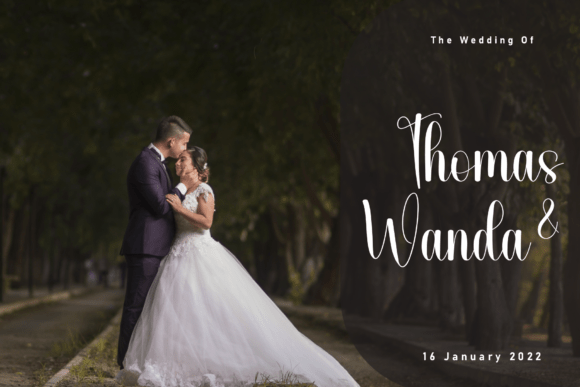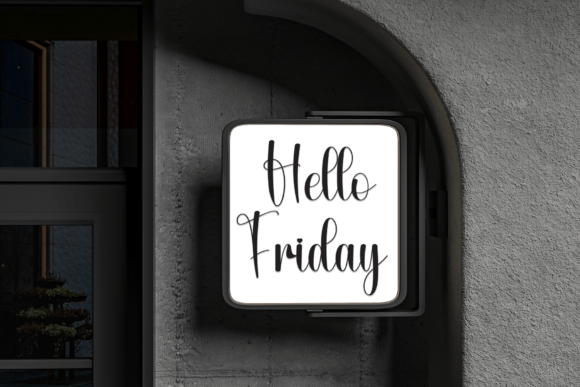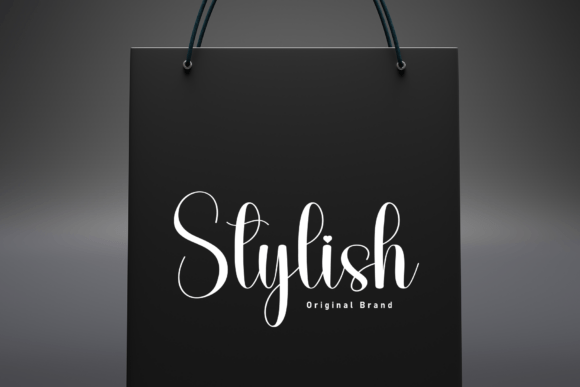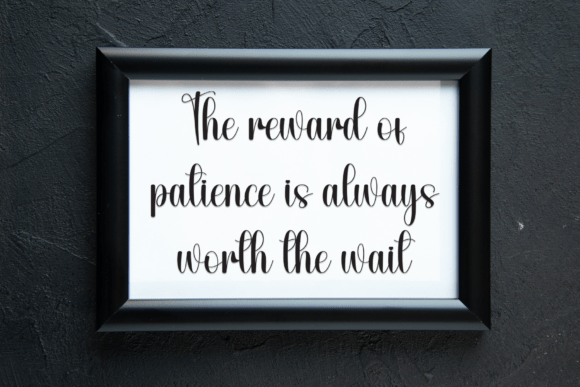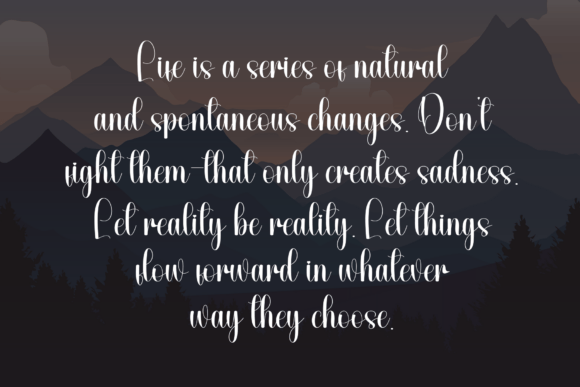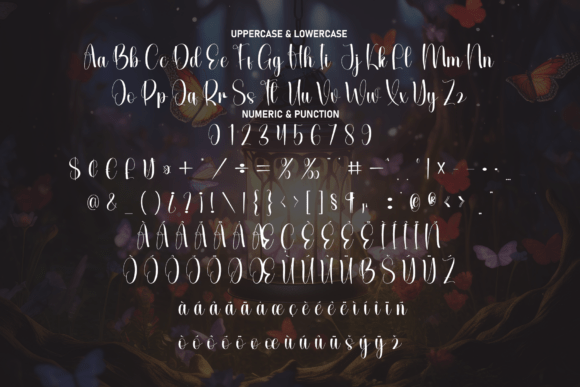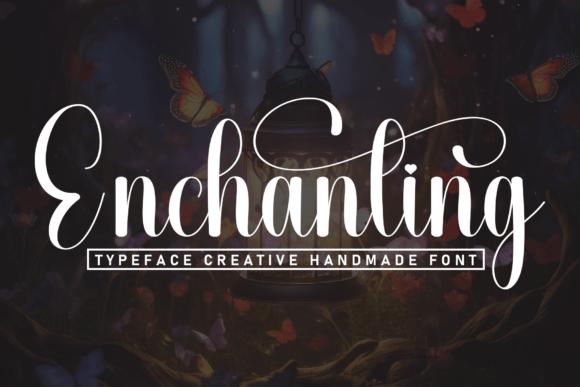
Introducing the Enchanting Font: Elevate Your Designs with Magical Typography
Are you a designer, crafter, or creative enthusiast looking for a unique and captivating font to take your projects to the next level? Look no further! Our Enchanting Font is here to mesmerize your audience with its special creative products, designed to provide an extraordinary experience. In this article, we’ll explore the features, benefits, and uses of our enchanting font, perfect for various design applications.
The Latest Style Letters for Stunning Designs
Our Enchanting Font boasts the latest style letters that are sure to leave a lasting impression. Whether you’re creating wall displays, wedding invitations, social media post logos, advertisements, product packaging, product designs, labels, photography, watermarks, invitations, stationery, or any project that requires tasteful handwriting, our font has got you covered.
Unlock Endless Creative Possibilities
With the Enchanting Font, the creative possibilities are endless. Use it to:
- Create stunning wall displays and signage that grab attention.
- Design beautiful wedding invitations and stationery that set the tone for a special day.
- Elevate your social media posts with eye-catching logos and graphics.
- Develop captivating advertisements that drive results.
- Enhance your product packaging and designs with a touch of elegance.
- Add a personal touch to your labels, photography, and watermarks.
- Design unique invitations and stationery that reflect your personality.
Why Choose the Enchanting Font?
Our Enchanting Font stands out from the rest due to its:
- Unique and captivating design: Our font is carefully crafted to provide a distinctive and enchanting look that sets your designs apart.
- Versatility: Use it across various design applications, from digital to print.
In conclusion, the Enchanting Font is the perfect addition to any designer’s or crafter’s toolkit. With its unique and captivating design, versatility, ease of use, and exceptional support, our font is sure to elevate your designs and provide an extraordinary experience. Get ready to unlock endless creative possibilities and take your projects to new heights with the Enchanting Font. Enjoy!